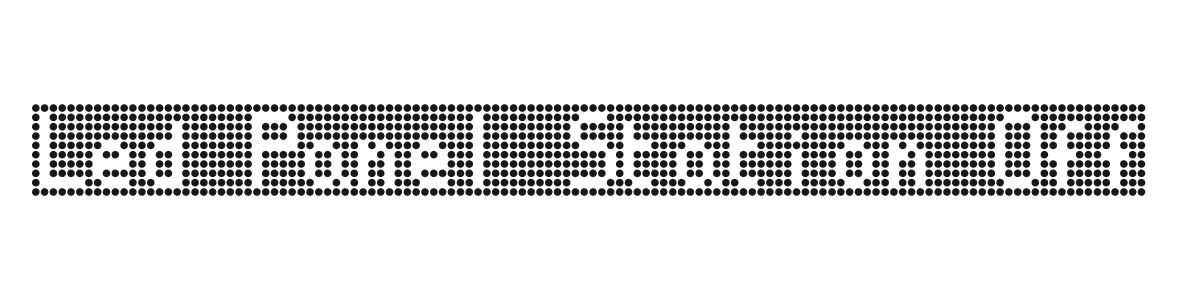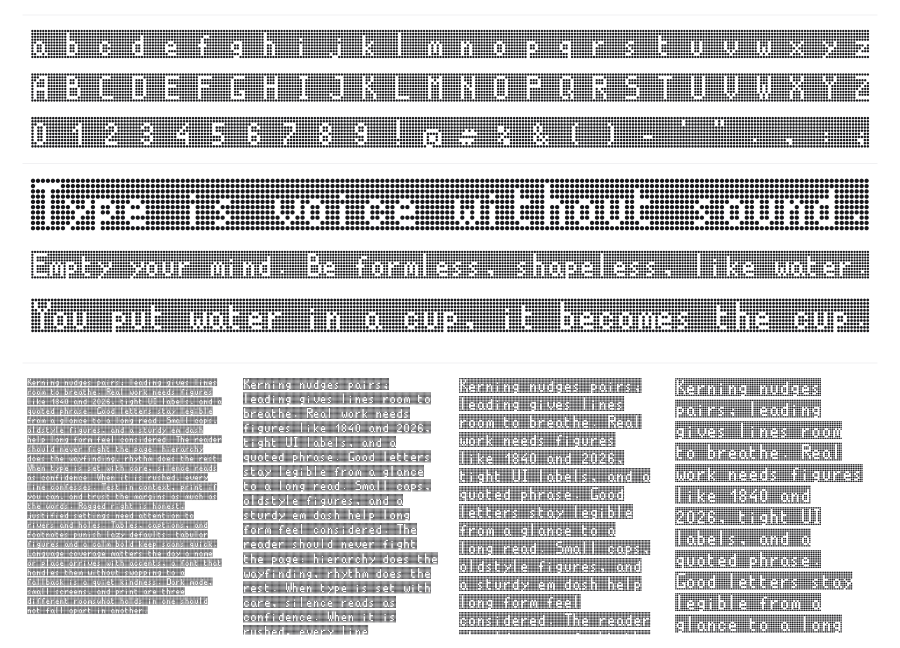
Led Panel Station Off
Led Panel Station Off is a dot-matrix display font built to evoke the LED and electromechanical departure boards of airports and train stations. Every character is formed from a grid of circles, with the 'Off' variant showing the unlit dot field behind the active ones, replicating the look of a panel mid-flip. The result is instantly recognizable to anyone who has ever squinted at a arrivals board.